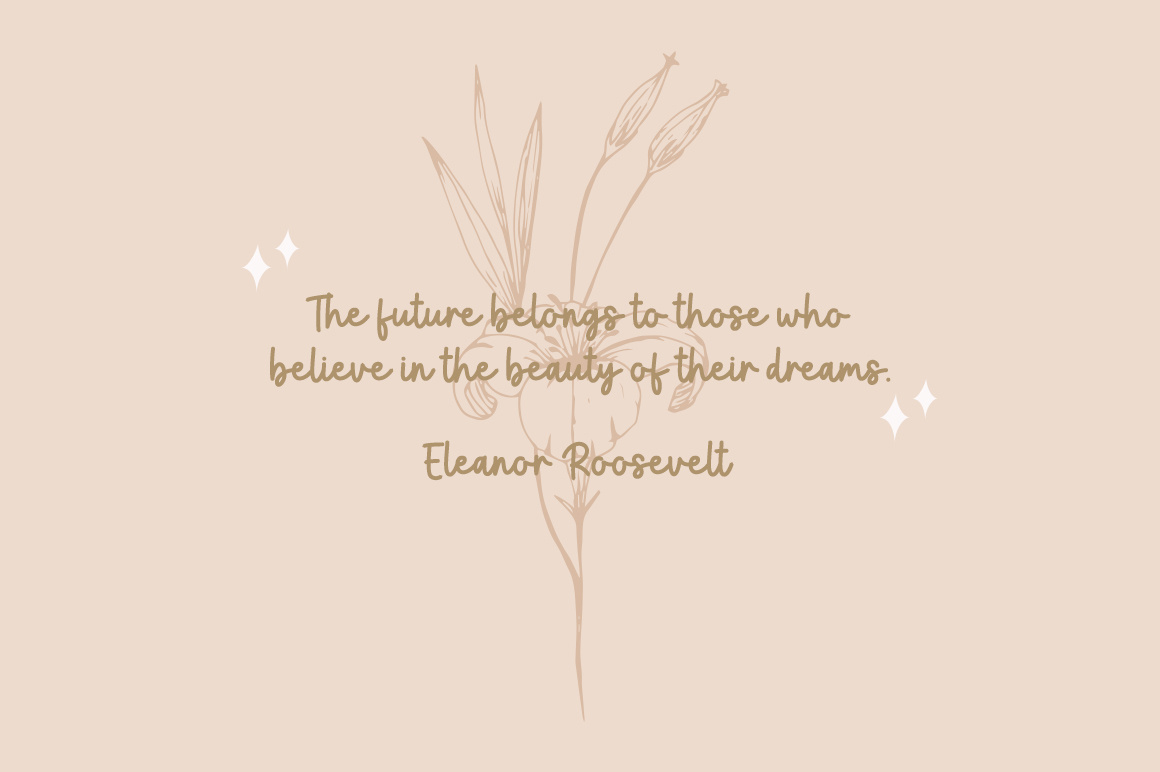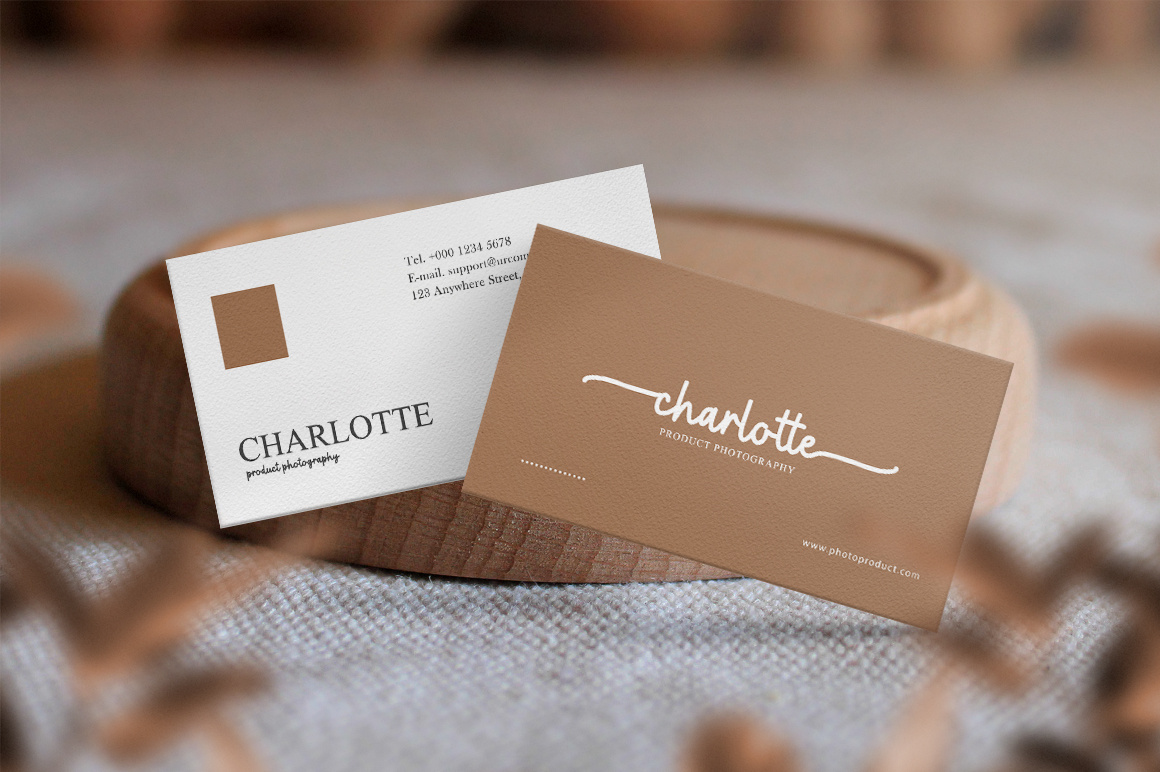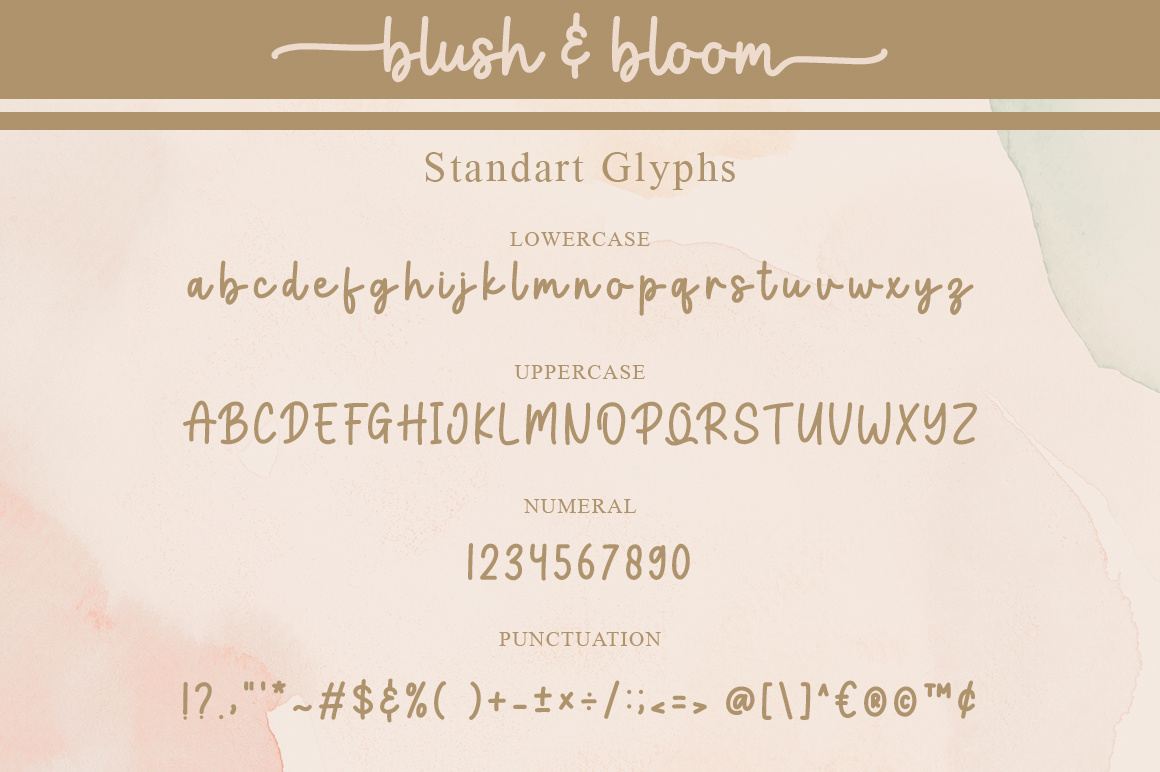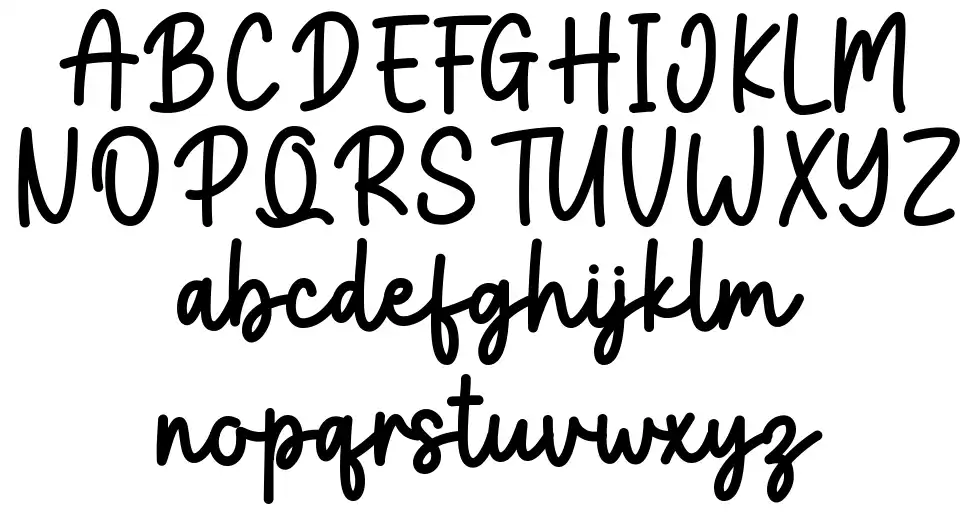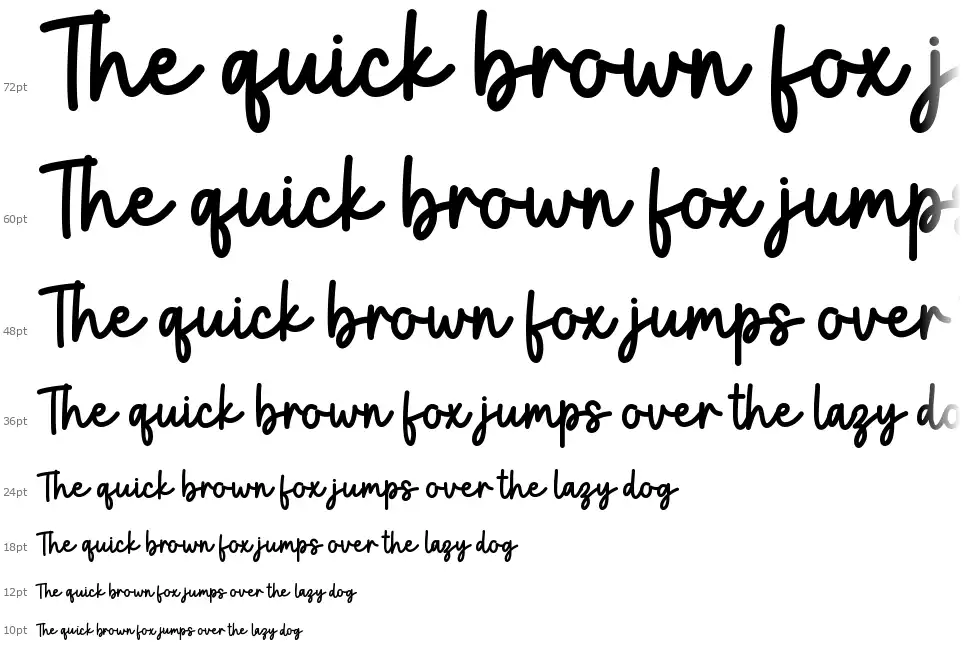
Blush And Bloom Font Free Download . Blush and bloom regular font free download. The best part is that you can download blush and bloom font with one click completely free! Click here and download the blush & bloom font · window, mac, linux · last updated 2024 · commercial licence included Blush and bloom font download is available free from fontget. Blush & bloom comes in both, regular and slanted, and looks gorgeous on business cards, envelopes, logos, signage, greeting cards, wedding. Download and install the blush and bloom font for free from ffonts.net. ️ this font has been downloaded 20+ times. A great choice for highlighting your design elements. Blush and bloom is a free font for personal use created by graphix line studio. So whether you're working on a personal project or. See how to download blush and bloom regular. This font is for personal use only!
Blush & Bloom Script Font Blush And Bloom Font Free Download See how to download blush and bloom regular. Click here and download the blush & bloom font · window, mac, linux · last updated 2024 · commercial licence included Blush and bloom regular font free download. This font is for personal use only! Blush and bloom is a free font for personal use created by graphix line studio. Blush &. Blush And Bloom Font Free Download.
Blush & Bloom Signature Type Font bundles, Blush, Lettering Blush And Bloom Font Free Download Blush and bloom is a free font for personal use created by graphix line studio. A great choice for highlighting your design elements. Blush and bloom font download is available free from fontget. Blush & bloom comes in both, regular and slanted, and looks gorgeous on business cards, envelopes, logos, signage, greeting cards, wedding. So whether you're working on a. Blush And Bloom Font Free Download.
Blush & Bloom Signature Type Design Cuts Blush And Bloom Font Free Download Blush & bloom comes in both, regular and slanted, and looks gorgeous on business cards, envelopes, logos, signage, greeting cards, wedding. Blush and bloom regular font free download. The best part is that you can download blush and bloom font with one click completely free! A great choice for highlighting your design elements. So whether you're working on a personal. Blush And Bloom Font Free Download.